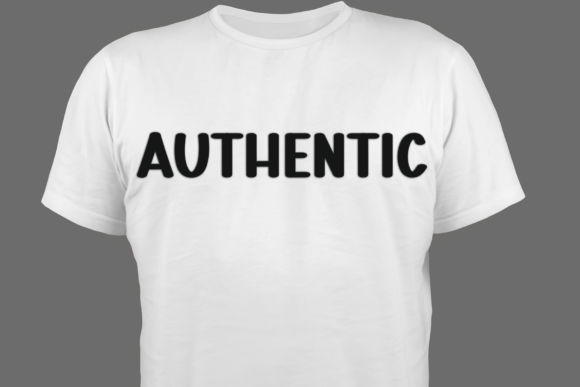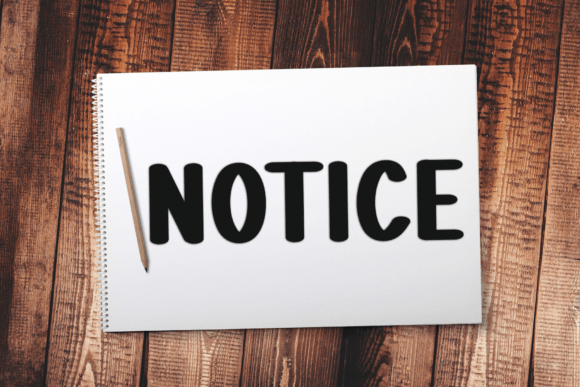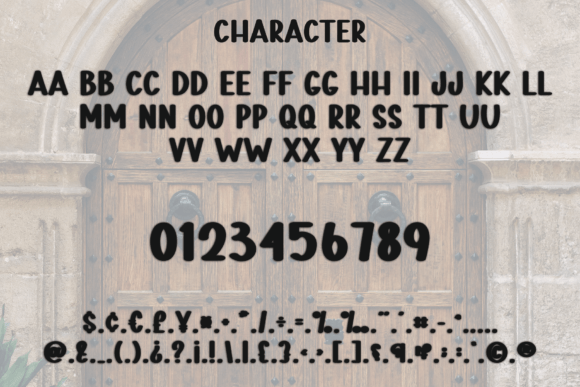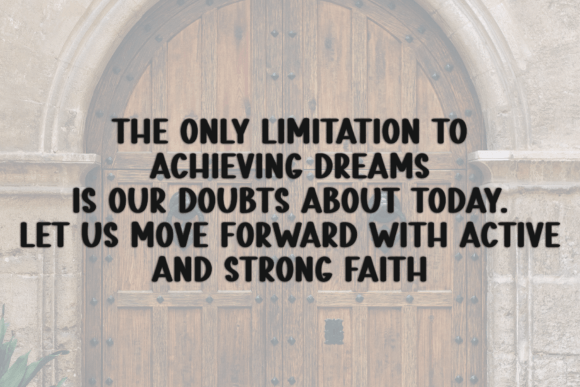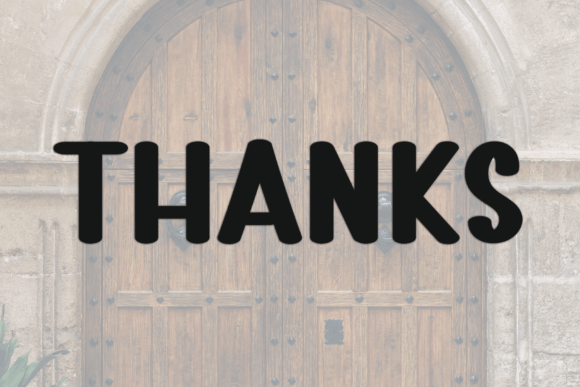
Introduction to Full House Font
Have you ever stumbled upon a font that makes your design project stand out from the crowd? For me, that moment came when I discovered the Full House Font. It was a Sunday afternoon, and I was working on a friend’s wedding invitation – a creative project that required a special touch. As I browsed through font options, I landed on Full House, and I knew I had found the perfect match.
The moment I applied the Full House Font to the invitation, I knew I had hit the jackpot. Its friendly and stylish vibe elevated the entire design, making it perfect for a special occasion like a wedding. As a designer, I understand the value of having high-quality design resources like the Full House Font, especially when working on creative projects that require a unique touch.
With its transparent background and versatility, the Full House Font is a must-have for designers who want to add a display touch to their work. Whether you’re creating wedding invitations, thank you cards, or business cards, this font is sure to make your design stand out. And the best part? It’s available for free download, making it an invaluable resource for any creative project.
Key Features of Full House Font
- Unique, playful design perfect for creative projects, including invitations, posters, and more
- Includes multiple font styles and weights, providing flexibility for various design applications
Honest Review: Full House Font
I recently stumbled upon the Full House Font while searching for design resources for a creative project, and I’m excited to share my thoughts on this free download. Overall, I’m quite impressed with its quality and versatility.
What works well: ✨ The font is incredibly easy to use, and its high quality makes it perfect for any design project. I particularly love the fact that it comes with a transparent background, which makes it seamless to integrate into any design. The font also offers a wide range of styles, from bold to thin, making it suitable for various creative applications.
What doesn’t work well: ⚠️ While the font is generally high quality, I did notice that it can be a bit difficult to read in certain sizes. Additionally, some of the styles may not be suitable for very small or very large text.
Overall, I’m very happy with the Full House Font, and I would highly recommend it to anyone looking for a reliable design resource. Its high quality, versatility, and ease of use make it a great addition to any design project.
- High-quality font
- Wide range of styles
- Easy to use
Tips for Getting the Most Out of Full House Font
To get the most out of the Full House Font, use it in conjunction with other high-quality design resources. Experiment with different font sizes, colors, and styles to create visually appealing designs. Don’t be afraid to try new things and push the boundaries of what’s possible with this versatile font.
The Full House Font is perfect for a variety of creative projects, including:
– Presentations and slideshows